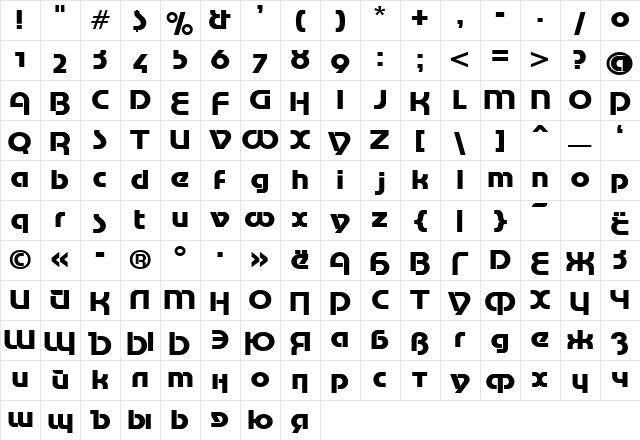
Complete Motter Tektura Cyrilic Normal glyph index. Displaying only characters natively supported by Motter Tektura Cyrilic Normal font.
Motter Tektura Cyrilic is a composed and adaptable typeface that performs quietly and consistently across a wide range of design contexts.